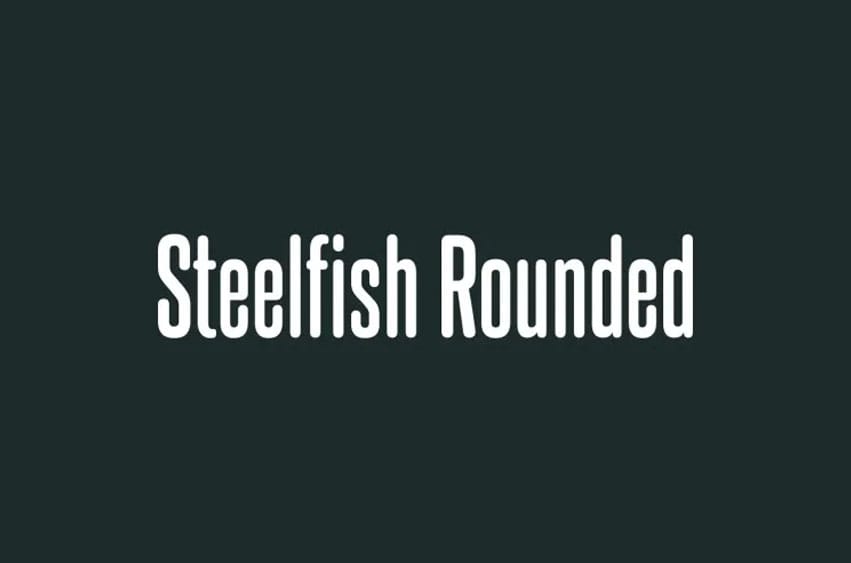
Steelfish Rounded Font is a compact headliner with a new twist on the Steelfish font, it has light curves and soft edges to match the overall feel. It’s designed for optimum legibility. It expresses a relaxed and harmonious feeling which can be a part in today’s fast-moving world while remaining wholly appropriate for the most formal text. The Steelfish font stemmed from a simple number sequence.
The Steelfish font was rebuilt in order to form new styles and weights. Almost all current Latin alphabet based languages are supported as well as Greek and Cyrillic.